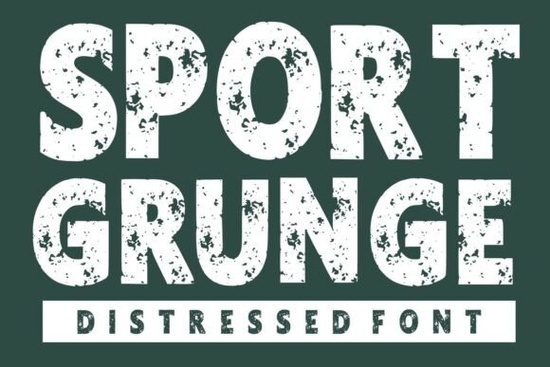
The Sport Grunge Font is a distressed display typeface built for bold, athletic-themed projects. It combines powerful letterforms with a worn, rugged texture that gives any design an energetic, competitive feel. If you're working on sports logos, team merchandise, or promotional posters, this font delivers a raw, high-impact look without needing extra effects or overlays. It's the kind of typeface that makes text stand out on a crowded page especially when you need that tough, vintage sports vibe.
What Makes This Font Different from Other Athletic Typefaces?
Most sports fonts go for clean, geometric shapes. That works for some projects, but it can feel flat when you want something with more personality. The Sport Grunge Font takes a different approach. Each letter has a distressed, weathered texture built right into the design. You don't need to add grunge overlays or texture layers in Photoshop the grit is already there.
Compare that to a typeface like a bold horror-inspired display font, which leans into sharp, aggressive shapes. Sport Grunge Font keeps its focus on strength and readability while still feeling raw and worn. It reads clearly at large sizes, which matters when you're designing banners, jerseys, or storefront signage.
What Can You Actually Use It For?
This font works well in a lot of practical design situations. Here are some of the most common uses:
- Sports team logos The distressed texture gives crests and wordmarks an authentic, battle-worn feel.
- T-shirt and apparel design Especially for print-on-demand sellers targeting the fitness, motorsport, or streetwear niche.
- Event posters and flyers Tough, high-energy lettering that grabs attention fast.
- Social media graphics Bold enough to stand out in a feed without looking cluttered.
- Gym and fitness branding Logos, signage, and marketing materials that need a strong, confident look.
- YouTube thumbnails and stream overlays Great for gaming or sports content creators who want an edgy aesthetic.
Does It Pair Well with Other Fonts?
Absolutely. The grunge display style works best as a headline or title font, so pairing it with a clean sans-serif for body text keeps everything balanced. You could also combine it with a script font for contrast. For example, mixing it with something like a classic script typeface with vintage character can create a layered, visually interesting layout especially for branding projects or apparel mockups.
On the other hand, if you're building a full grunge-themed design system, you might explore other textured options like grunge-style display fonts with distressed effects to complement Sport Grunge across different parts of your project.
Is It a Good Fit for Seasonal or Trend-Based Designs?
Definitely. Sports-themed designs sell consistently throughout the year think football season, the Olympics, local tournaments, and fitness challenges. But the distressed vintage style also works beyond pure sports. It fits well with retro-themed projects, outdoor adventure branding, and even music event posters.
If you're working on lighter, more playful designs alongside your athletic projects, you might also want something like a charming summer display typeface for seasonal contrast. Having a range of display fonts from rugged to whimsical gives you flexibility for different client needs and trending design styles.
Who Is This Font Best For?
This typeface is a solid pick for:
- Print-on-demand sellers who need ready-to-use athletic and streetwear designs.
- Small business owners in the fitness, sports, or outdoor industry looking for strong branding.
- Graphic designers working on event materials, team merchandise, or promotional graphics.
- Crafters and hobbyists making custom decals, signs, or gifts with a sports theme.
- Content creators who want bold, eye-catching text for thumbnails, banners, and overlays.
Tip: If you're designing for screen printing or DTG, print a small test sample first. Distressed textures can sometimes lose detail at lower resolutions or on certain fabrics.